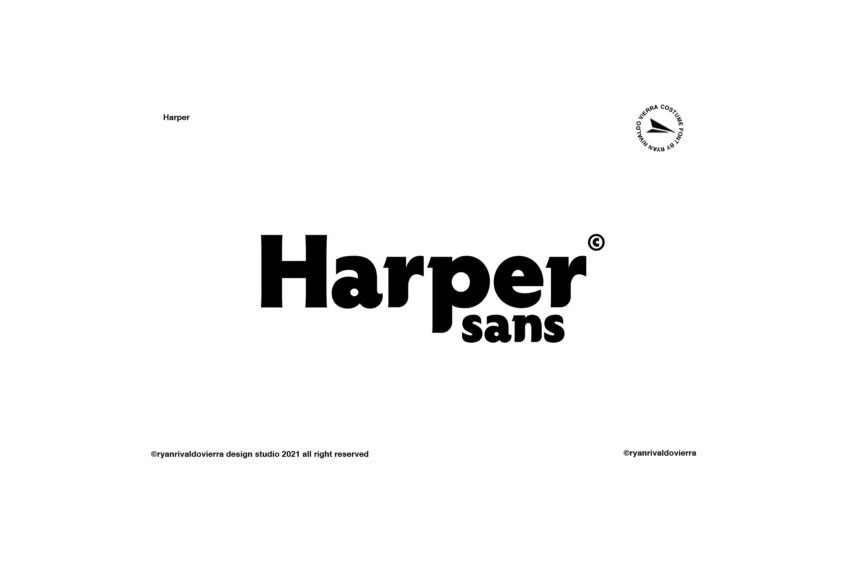
Harper Sans Font
Harper Sans Font is a cool, versatile, and thick lettered display font. It will look stunning on any poster, flyer, or print.
Use this font for your designs and explore its endless possibilities.